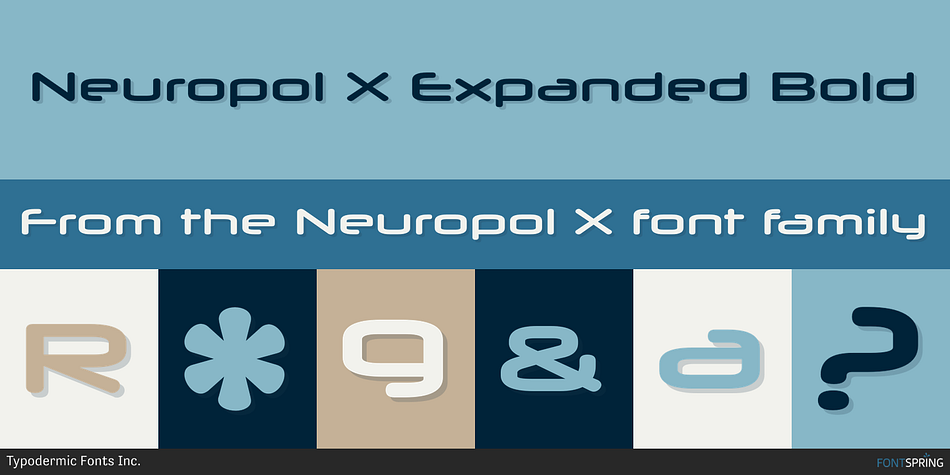
Neuropol X Expanded Bold
Neuropol X is a display sans font family. This typeface has thirty styles and was published by Typodermic Fonts Inc.
In the world of graphic design, there are some typefaces that stand the test of time and become ingrained in the collective creative consciousness. Neuropol is one of those typefaces, and Neuropol X is the enhanced version that takes things to the next level.
With its broad, futuristic letterforms, Neuropol X is a true classic of the Y2K design era. The smooth, plastic strokes evoke images of a time when technology was exploding with possibilities, and designers were eager to incorporate these visions into their work. The truncated, rounded strokes of Neuropol X bring to mind the shapes of lasers, circuit boards, and oscilloscope vectors—all hallmarks of the Y2K design aesthetic.
This expanded version of the original Neuropol, first released in 1996, comes in a bigger family, with five weights, three widths, and italics. This range of options allows designers to create a diverse array of looks, from sleek and modern to bold and attention-grabbing. Whether you’re creating a website, a brochure, or a brand identity, Neuropol X has the versatility and timeless appeal to elevate your design to the next level.
If you’re looking to tap into the iconic design trends of the Y2K era, look no further than Neuropol X. It’s a typeface that’s been tried and tested by generations of designers and has stood the test of time for a reason. So why not add it to your toolbox and see how it can help take your designs to new heights?